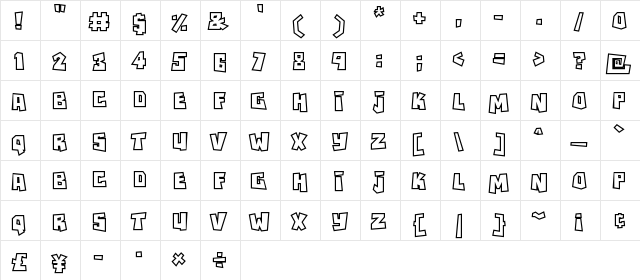
RockBiterOutlines Regular
Design Context for RockBiterOutlines Typeface
RockBiterOutlines is built around its visual character rather than neutral utility — its distinctive forms are designed to make an impression at display sizes.
Font Pairing: Pair with a clean neutral sans-serif for body copy to let RockBiterOutlines's character lead without overwhelming the composition.
Pro Tip: Use RockBiterOutlines exclusively at display sizes — it was designed to be seen, not read at length. Let a neutral companion handle body copy.